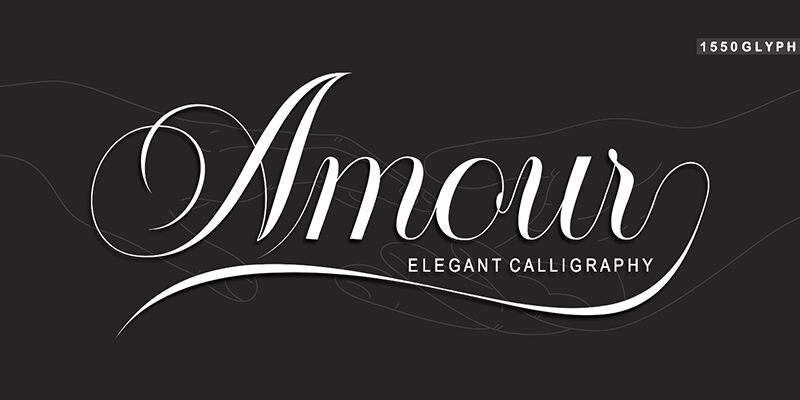
Amour
Amour font by Bosstype Studio is a free calligraphy font that captures the essence of romance and elegance. The sophisticated curves and flowing lines create a luxurious and classic appeal, making it perfect for projects that demand an ornate touch.
Perfectly suited for wedding invitations, love letters, branding, editorial designs, packaging, social media posts, logos, apparel design, book covers, tattoos, fine art prints; Amour font will make your project look as sophisticated as possible.
Features: Swash, unique and modern Alternatis & Ligature.